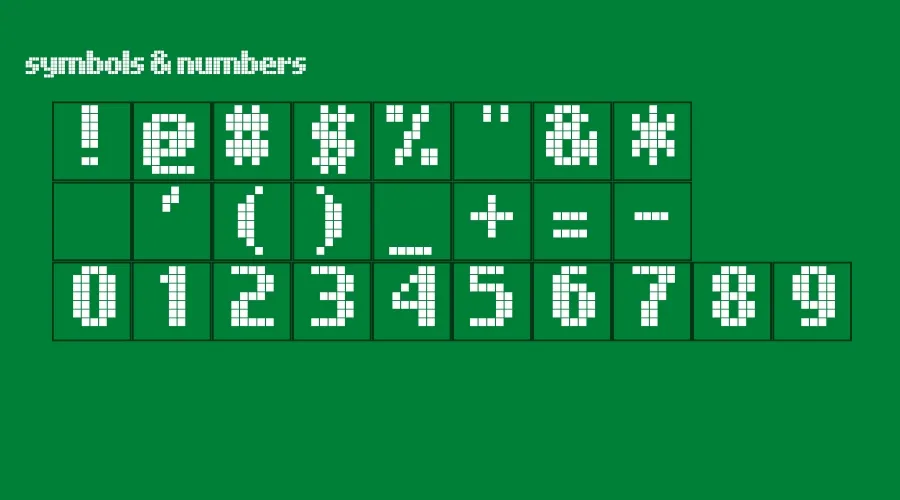
About Nokian Font
Nokian Font is designed by Muhittin Gne it can be utilized for a wide run of applications such as site plans, branding, and advertising.
Blending this font can increment the coherence of your venture plan so you’ll match it with the Miami bad habit text style which can be accommodating to you.
As an awesome font with a very unique style, it can be used for various purposes, including headlines, logos, branding, and more. This font is the perfect choice for all of your designs if you are seeking a modern, stylish font.
This text style contains a clear and perfect plan that’s effectively visible by its peruses. The designers can utilize this textual style for planning ebook covers, headings, brand plans, official cards, clothing plans, printing purposes, divider wall paintings, bulletins, menus, banners, promotions, and many more.
This typeface is the perfect choice for all of your designs if you are seeking a modern, stylish typeface. The generator tool of this family can be used.
Style | Techno |
Is Nokian Font have great readability?
This typeface has unbelievable significance. It may be an extremely flexible textual style that can be utilized for numerous purposes.